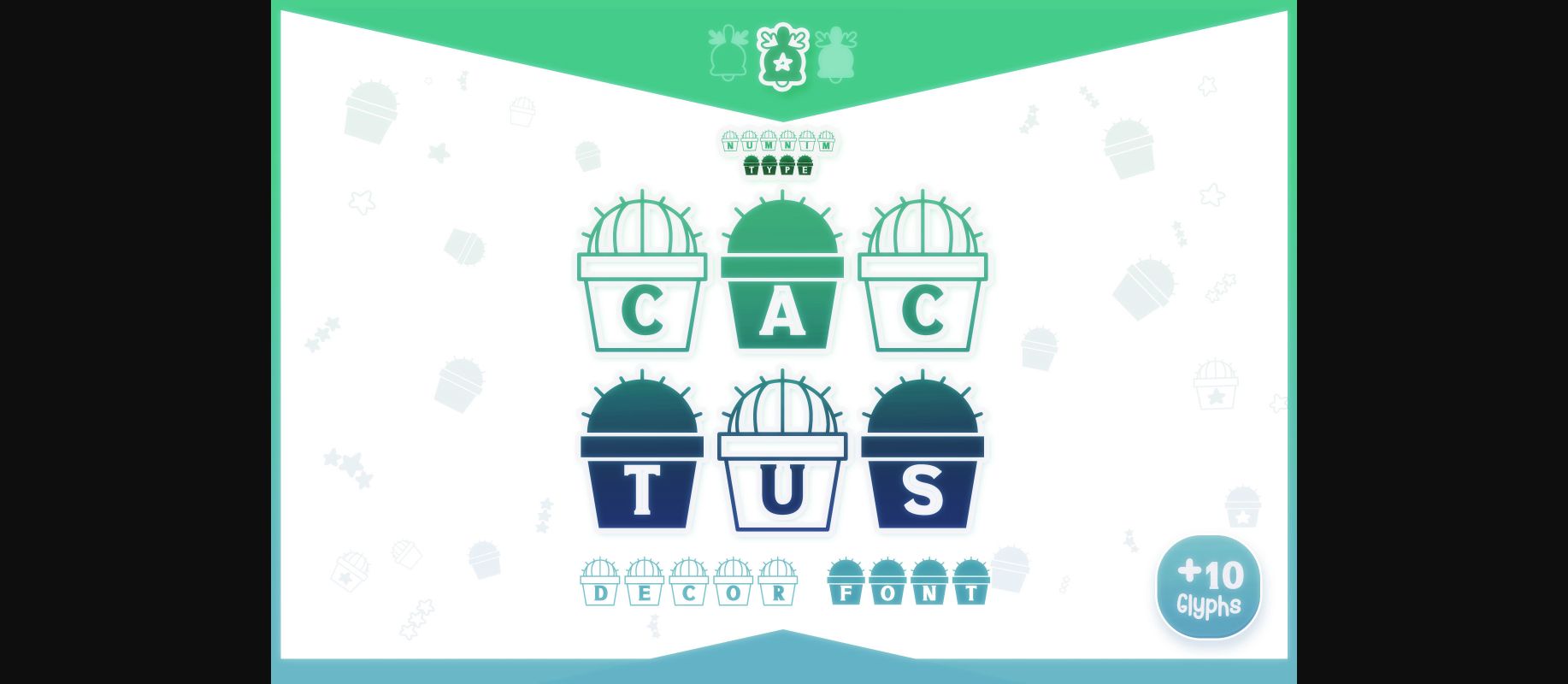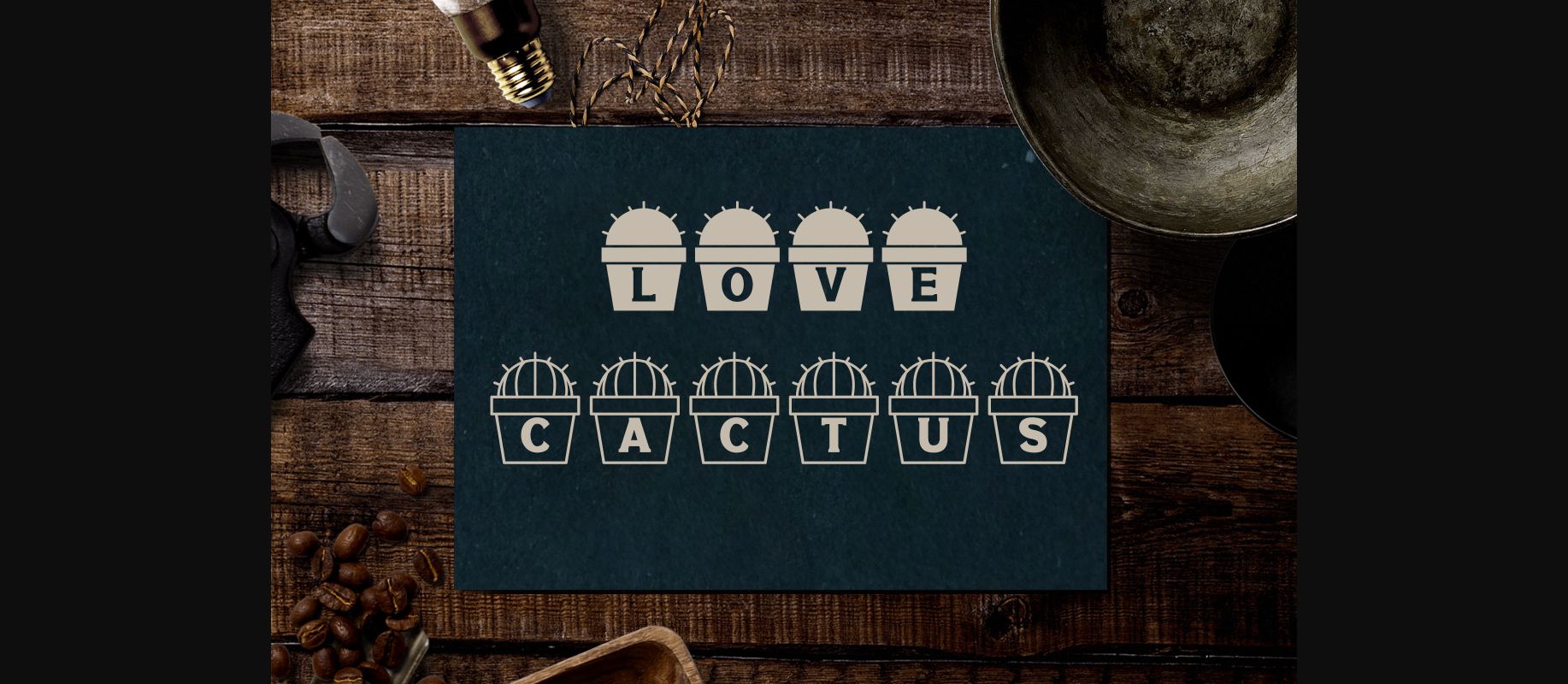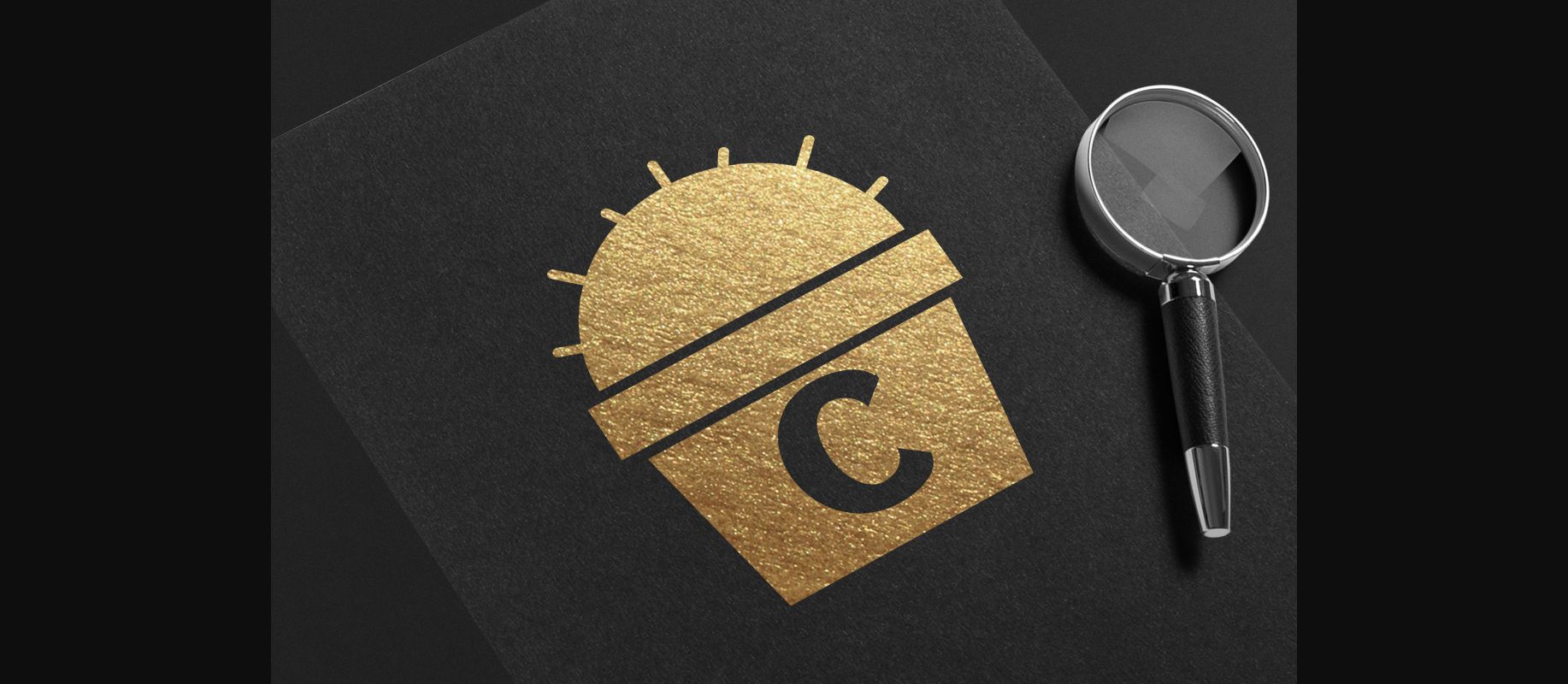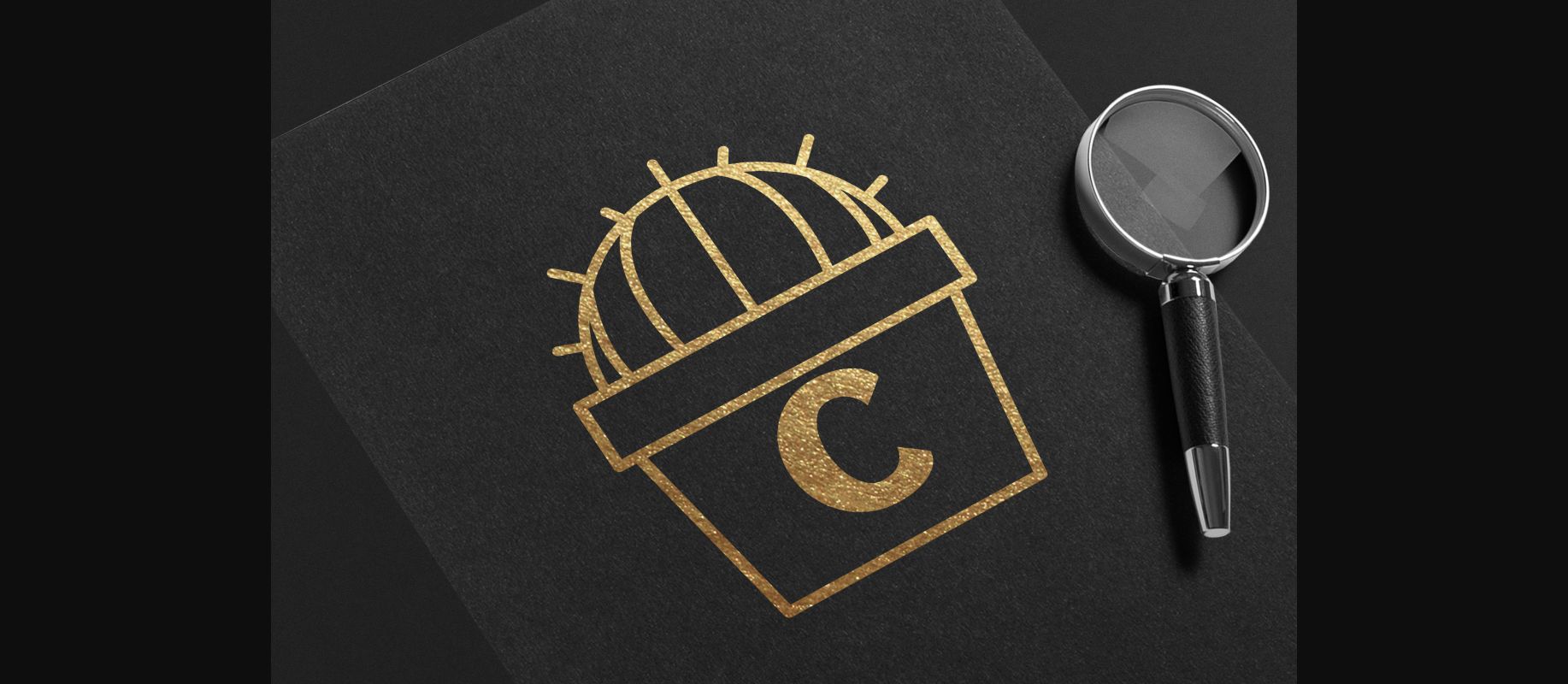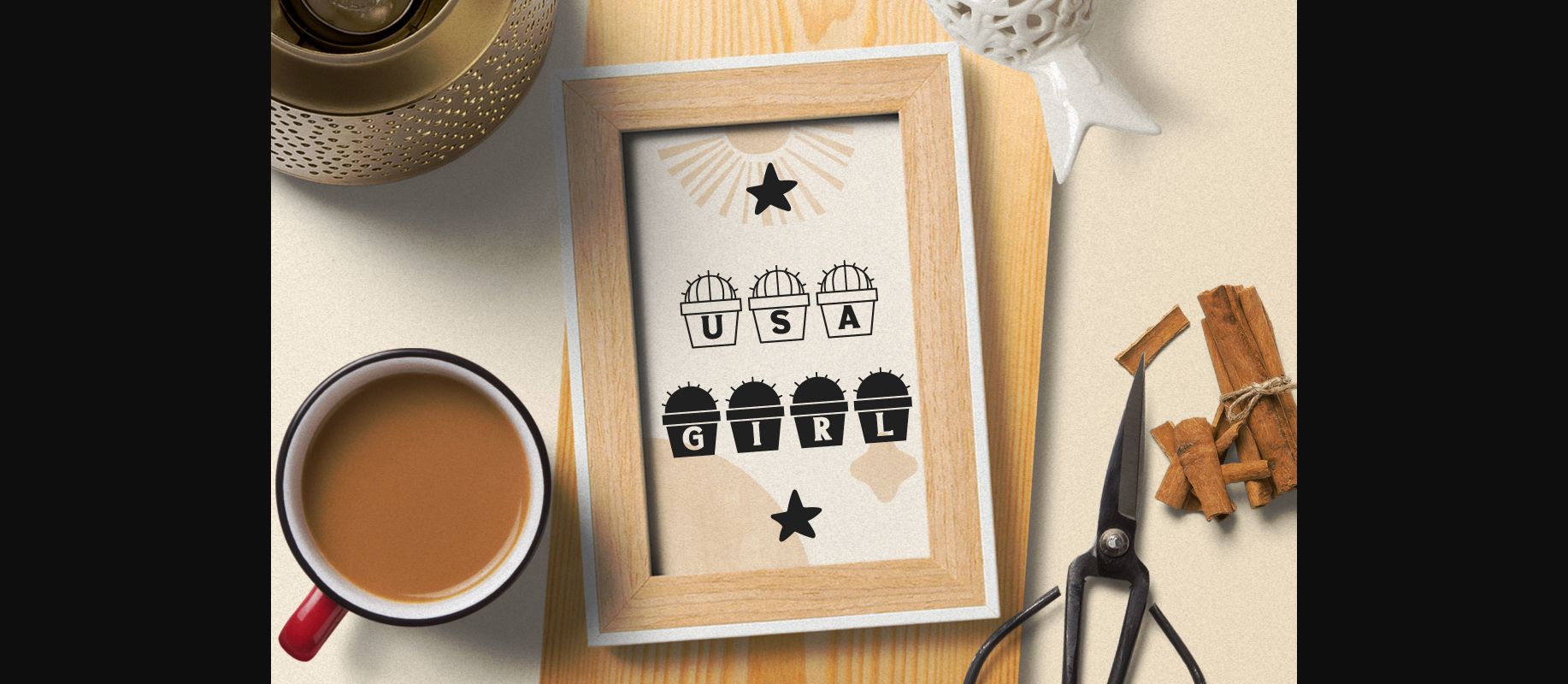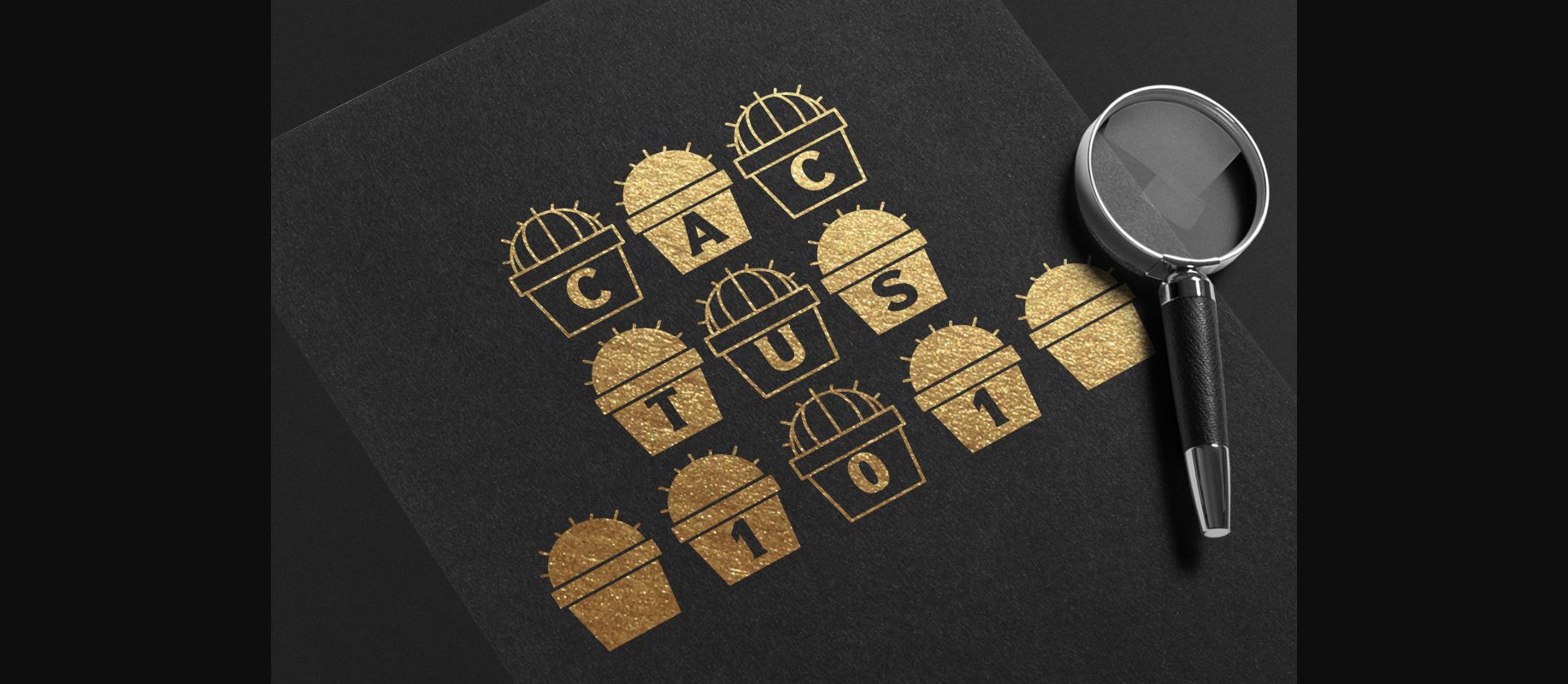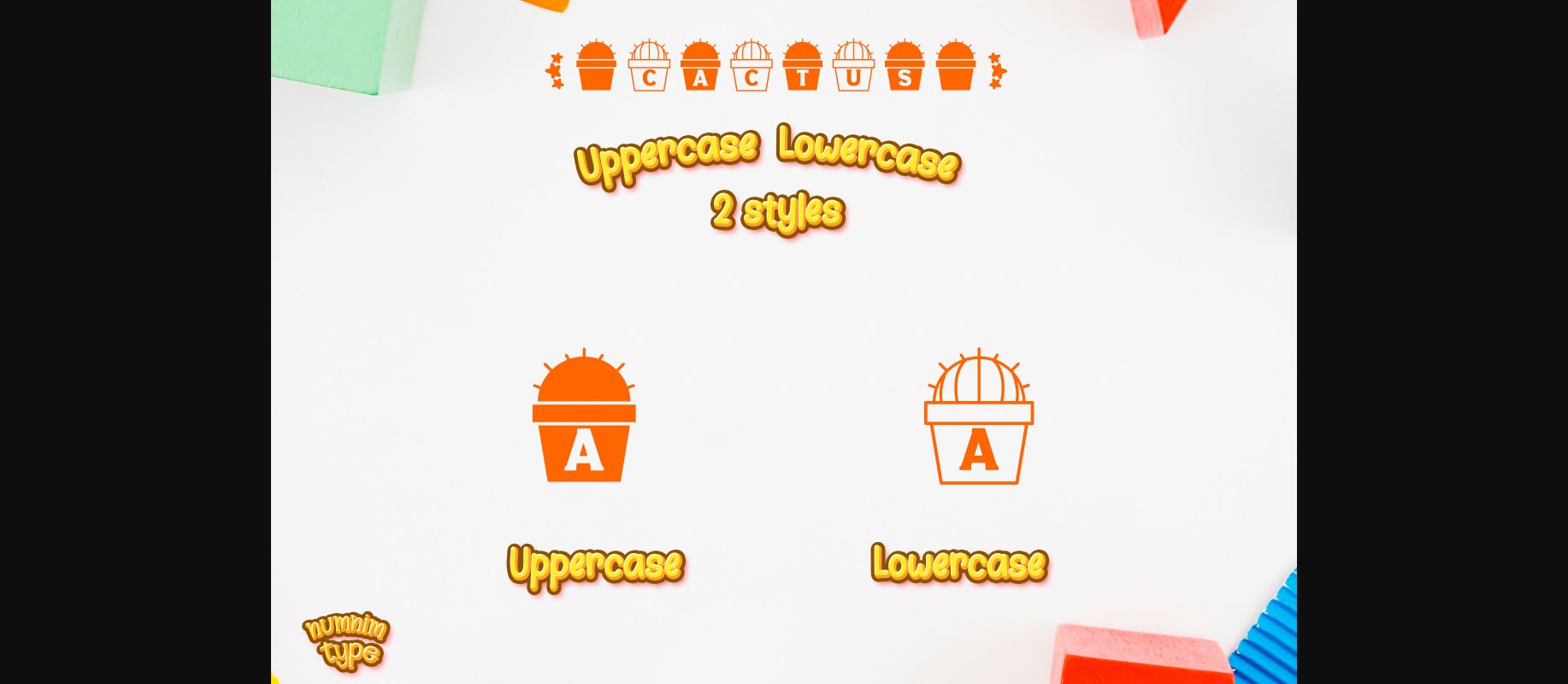
HomeDecorative FontsCactus Font Decorative Fonts Cactus Font FacebookXPinterestWhatsApp 1 of 11 ... Cactus Font Poster 2... Cactus Font Poster 3... Cactus Font Poster 4... Cactus Font Poster 5... Cactus Font Poster 6... Cactus Font Poster 7... Cactus Font Poster 8... Cactus Font Poster 9... Cactus Font Poster 10... Cactus Font Poster 11... About Cactus Font Cactus is a cool and uniquely designed decorative font created particularly for Cactus Lovers. Each character is fun and playful, perfect for adding a bold accent to your designs! DOWNLOAD NOW People also explored Consider Font Libreville Font Bestnine Font Best School Font Allfine Font Barbie Font The Charmless Font Chubby Darling Font Jackpout Font 282 0 TagsCactusCactus Font Previous articleMaverick FontNext articleCute Crafts Font LEAVE A REPLY Cancel reply Comment: Please enter your comment! Name:* Please enter your name here Email:* You have entered an incorrect email address! Please enter your email address here Website: Save my name, email, and website in this browser for the next time I comment. Personal Use Free Mariyam Personal Use Free Read more about this font Stentiga Personal Use Free Read more about this font Cinderella Personal Use Free Read more about this font Farmgarden Personal Use Free Read more about this font BLOG Fonts That Capture the Spirit of New York City New York City is more than just a place—it’s an experience, a rhythm, a visual language... Top 7 Google Fonts Alternatives for Faster and Privacy-Friendly Web Design (2025) Best Fonts for T-Shirt Design – Top 2025 Picks How to Install and Use Fonts on Windows, macOS, and Web Projects